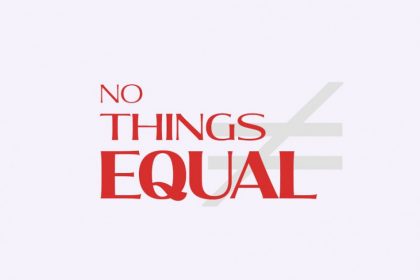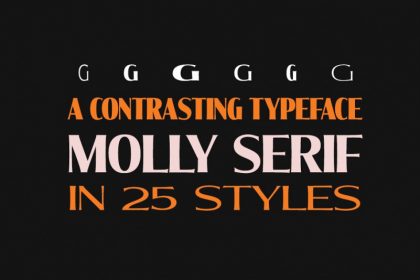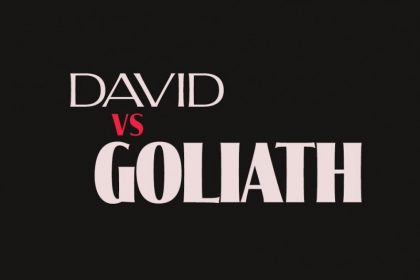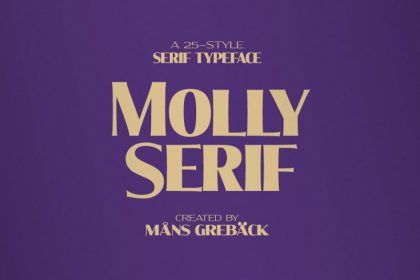
Molly Serif Font Family
Hello guys. This is new, bold, clean serif with contrasting weight and dramatic effect. The font family includes 25 (!) styles, from Extra-Condensed Thin to Extra-Expanded Black. The many style options allows for very high flexibility and real customization. Introducing Molly Font. It’s designed and shared by Mans Greback. Molly Serif Font Family is a multi-style serif family. With an appearance similar to traditional sign painting, this all-caps typeface works great in classic, genuine and crafty designs. Like a newspaper black print header, Molly Serif is used for logos and titles meant to grab the attention of the observer.